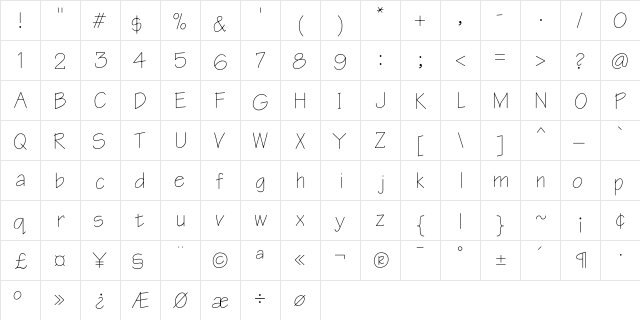
Architect Regular
Design Context for Architect Typeface
Architect takes a measured approach to typography — its balanced proportions and neutral character make it a reliable workhorse for both digital and print work.